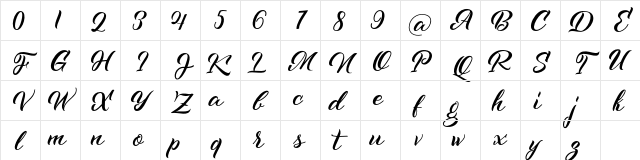
Kenshington is a composed and adaptable typeface that performs quietly and consistently across a wide range of design contexts.
Pro Tip: Use Kenshington in both headline and body roles to test its range before committing to a single application.